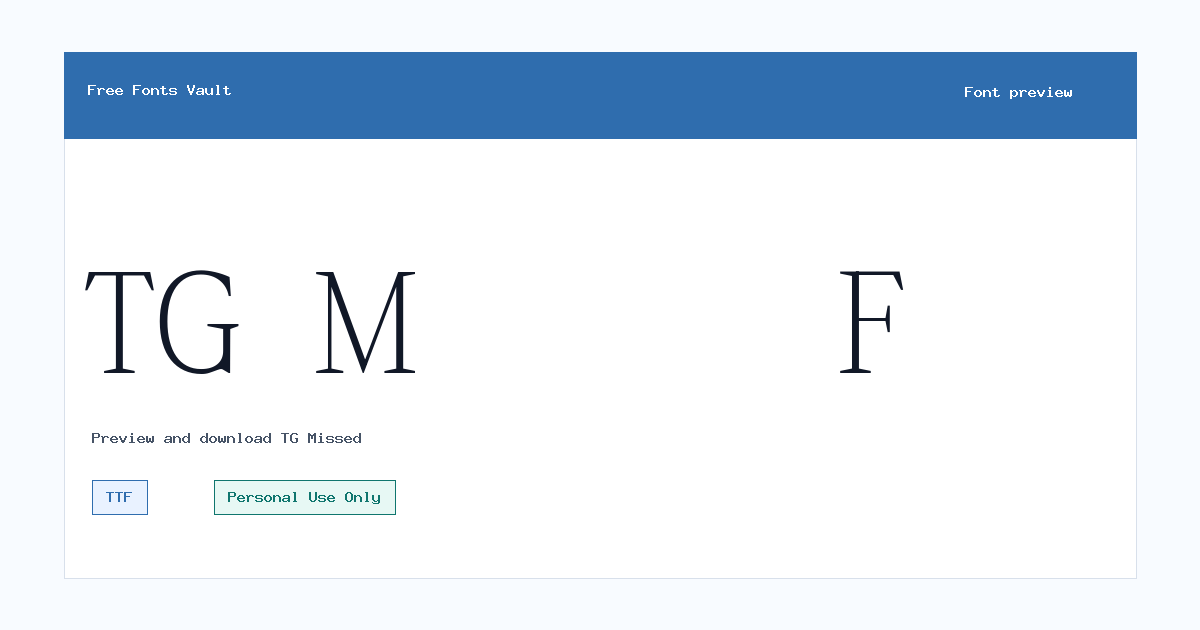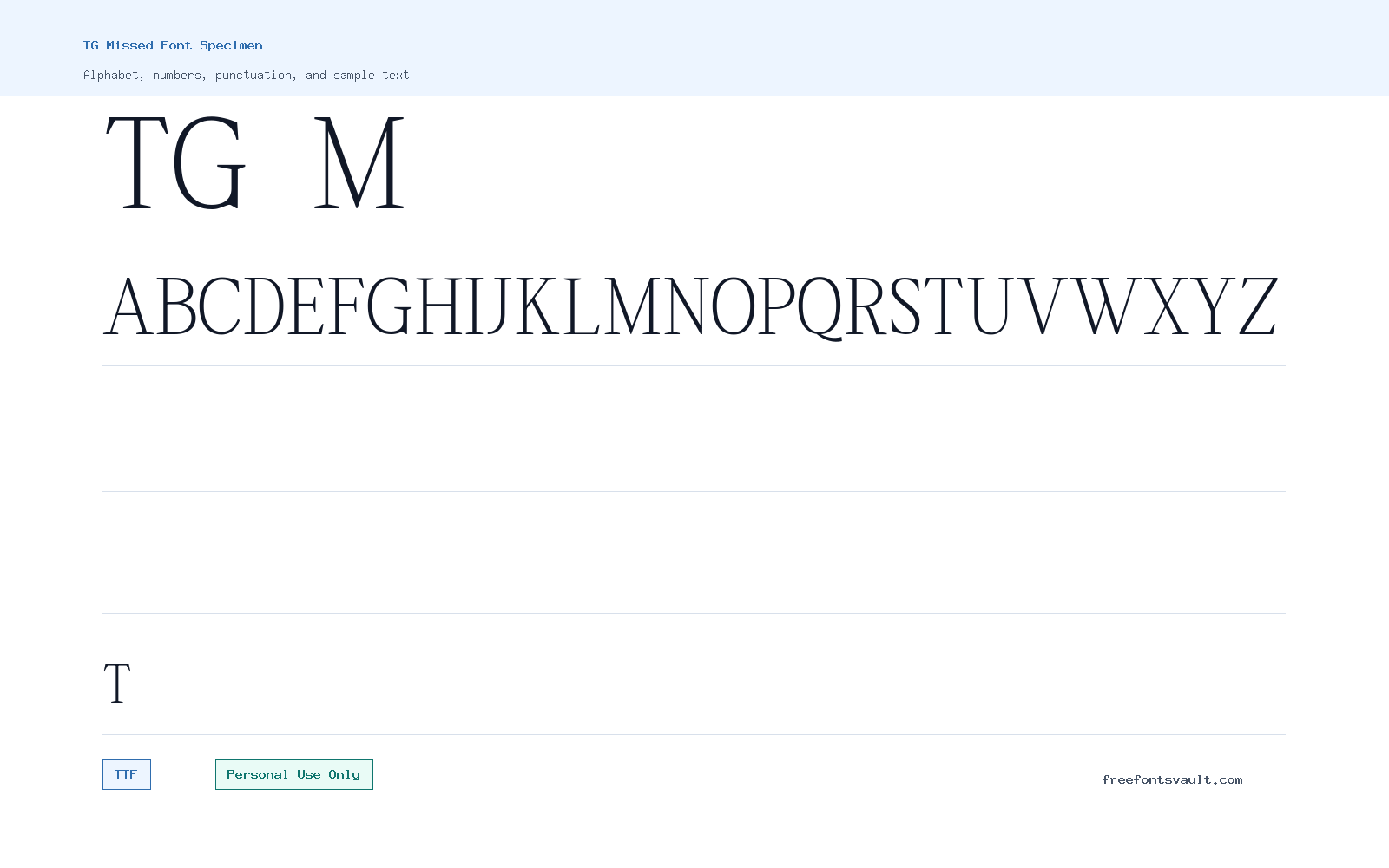
TG Missed
- Designer Mukhamaad Rafly Makhbuby Part Of Typogrid
TG Missed is a personal-use font from Mukhamaad Rafly Makhbuby, part of Typogrid. It is offered as a regular TTF style, making it easy to test in most design apps before you download.
About TG Missed
TG Missed is listed as a serif font, so it is best approached as a typeface for display settings where character shape and tone matter. Because only a regular weight is included, it works best when you give it space and avoid relying on a full family of weights for hierarchy. Use the preview tool to check uppercase letters, punctuation, numbers, and any words you plan to use in a final design. That is especially useful for names, titles, and short phrases where one unusual character can change the whole feel of the layout.
For practical use, start with short text: poster lines, quote graphics, social media headers, invitation titles, logo drafts, or editorial-style headings. If you need body copy, test a full paragraph first at the size you expect to use, because a decorative or high-character serif can lose clarity in small text. Pair it with a clean sans serif or a quiet text serif so TG Missed can stay as the focus. Since the download is a TTF file, it should be suitable for common desktop projects such as previewing, installing, and trying it in design software that supports TrueType fonts.
- Display titles, posters, quote graphics, and short editorial headings
TG Missed is credited to Mukhamaad Rafly Makhbuby, part of Typogrid.